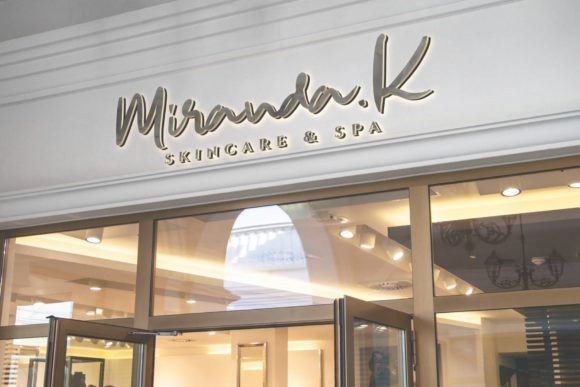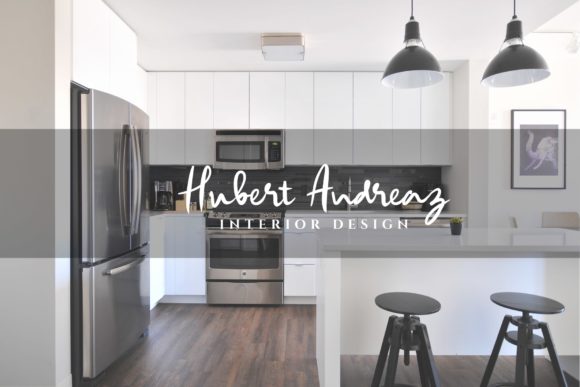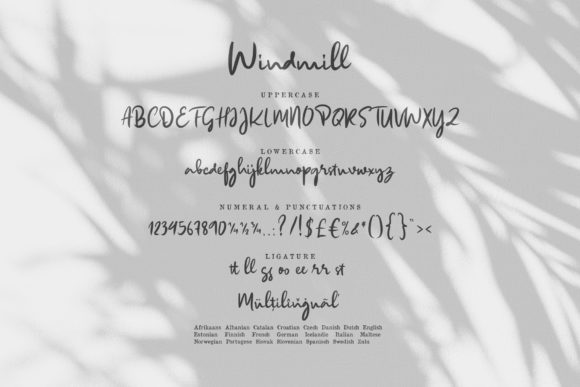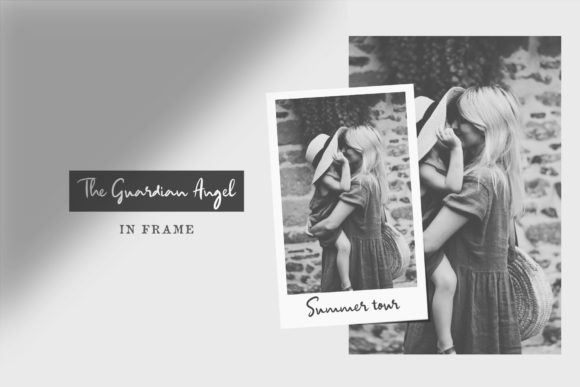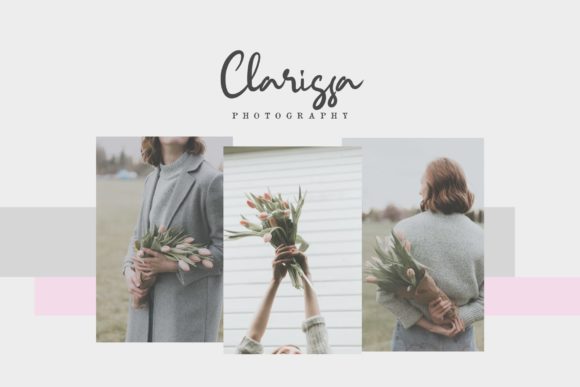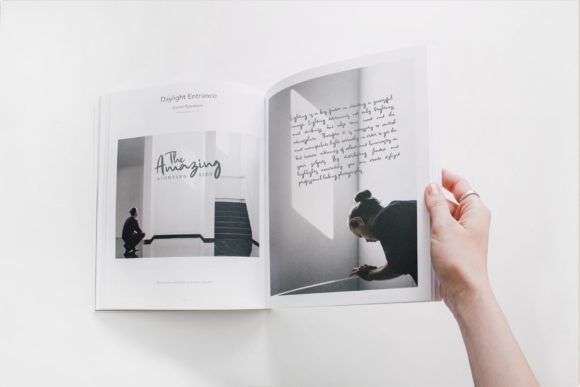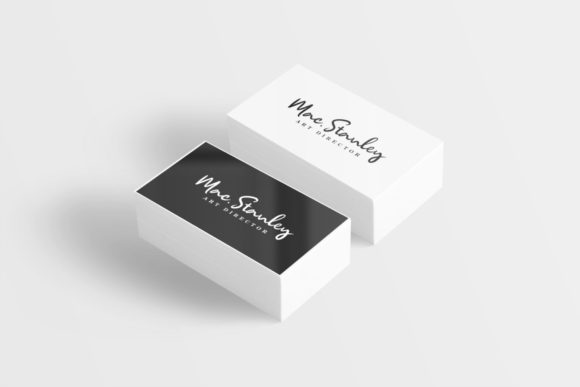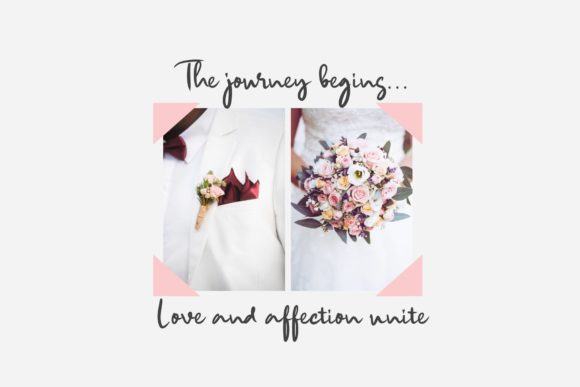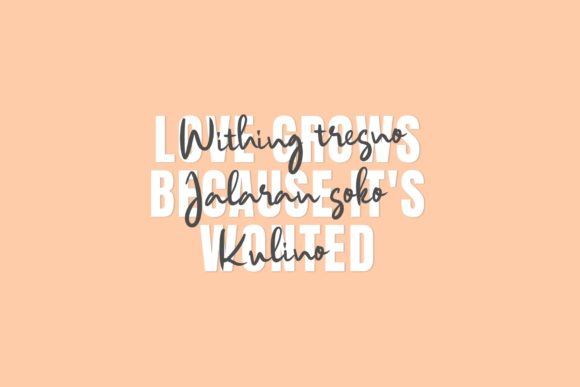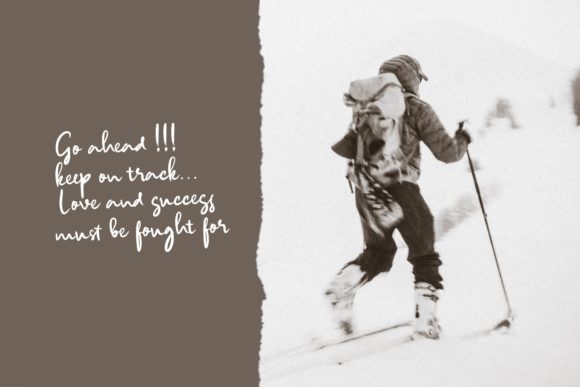
HomeScript FontsWindmill Font Script Fonts Windmill Font FacebookXPinterestWhatsApp Windmill Font Poster 2 Windmill Font Poster 3 Windmill Font Poster 4 Windmill Font Poster 5 Windmill Font Poster 6 Windmill Font Poster 7 Windmill Font Poster 8 Windmill Font Poster 9 Windmill Font Poster 10 Windmill Font Poster 11 Windmill Font Poster 12 About Windmill Font Windmill is a light and minimalist font with an authentic twist. It will turn any design project into a stand out! DOWNLOAD NOW People also explored Aselia Font Black Light Font Malstyoor Font Albatrysh Font Beloving Font Basketball Font Honey Crafter Font Ruscalz Font Vintage Mintage 325 0 TagsWindmill Font Previous articleAucklands Script FontNext articleSwitzerland Font LEAVE A REPLY Cancel reply Comment: Please enter your comment! Name:* Please enter your name here Email:* You have entered an incorrect email address! Please enter your email address here Website: Save my name, email, and website in this browser for the next time I comment. Personal Use Free Green Farmhouse Personal Use Free Read more about this font Pasile Personal Use Free Read more about this font Bintang Noela Personal Use Free Read more about this font Milda Personal Use Free Read more about this font BLOG How to Install and Use Fonts on Windows, macOS, and Web Projects How to Install and Use Fonts on Windows, macOS, and Web Projects Fonts are a crucial part of design and branding. Whether you’re designing a... Transform Your Website: Elevate Your Typography with 7 Best Web Font Generators Top 10 Handwritten Fonts That Elevate Your Designs To increase your work productivity, choose the most readable fonts.